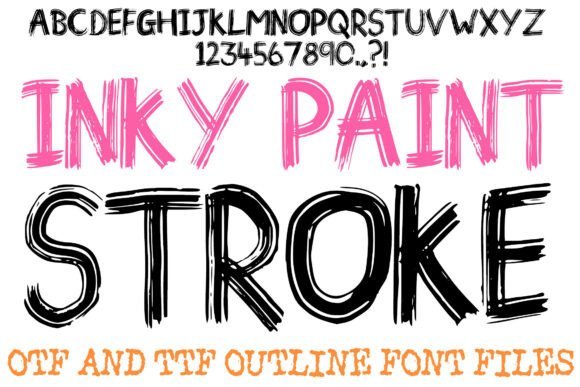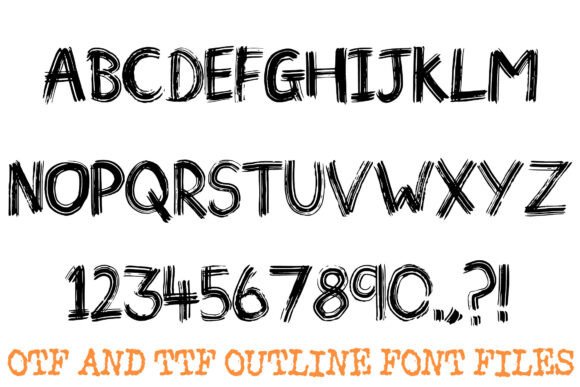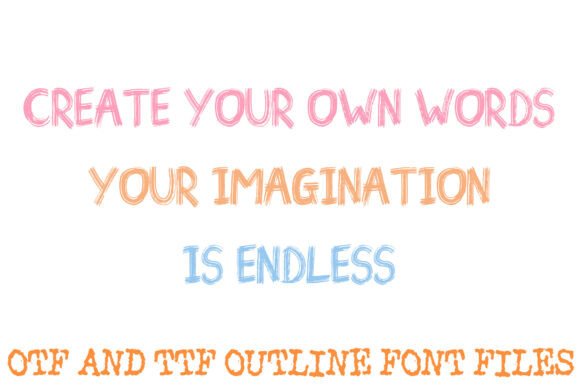
Unleashing the Raw Energy of Artistic Expression
Remember the rush of creating something new, when the paint flows effortlessly onto the canvas, and the world feels full of endless possibilities? For designers, this feeling is what makes the Inky Paint Stroke Font so irresistible. This expressive display typeface captures the raw energy of a professional art studio, bringing the authenticity of hand-painted strokes to digital design.
Hand-drawn using real paint and ink, the Inky Paint Stroke Font boasts a high-textured look, complete with prominent bristle textures and visible “feathering” at the ends of each stroke. Its multiple-layered ink paths create a sense of rapid movement and gestural flair, making it an outstanding choice for modern branding, edgy apparel, and high-impact editorial design.
- Unique Characteristics: Hand-painted, brush-like strokes and subtle texture, giving the font a unique, organic feel
Designer Review: Inky Paint Stroke Font
I recently had the chance to work with the “Inky Paint Stroke Font”, and I must say it’s an interesting addition to my design toolbox. ✨ One of the things that works well with this font is its ability to evoke a sense of hand-drawn whimsy. It’s perfect for projects that require a touch of organic feel.
The font’s varied brush strokes and subtle texture give it a unique character that’s sure to capture attention. I particularly enjoyed using it for headings and titles, as it adds a playful touch without being too distracting. ✨ Additionally, the font’s legibility is good, making it suitable for body text as well.
While the “Inky Paint Stroke Font” has its strengths, there are some limitations to consider. ⚠️ One of the main issues is its limited font size range. At smaller sizes, the font can become difficult to read, and at larger sizes, it can lose its delicate feel.
Another limitation is the font’s lack of customization options. While it’s a unique and charming font, it may not be suitable for projects that require a high degree of control over typography.
Overall, I think the “Inky Paint Stroke Font” is a fun and creative addition to any design project. While it has some limitations, its unique character and versatility make it a great choice for designers looking to add some personality to their work.
Recommendation
I would recommend the “Inky Paint Stroke Font” for designers working on projects that require a touch of whimsy or organic feel. However, for projects that require a high degree of control over typography or complex layouts, you may want to consider a more versatile font option.
- Unique, hand-drawn feel
- Varied brush strokes and texture
- Good legibility
- Limited font size range
- Lack of customization options
Use Inky Paint Stroke Font for:
1. Creating playful and artistic headings.
2. Adding a touch of whimsy to your designs.
3. Enhancing the visual appeal of your text.
Remember to balance the font with other design elements to avoid overwhelming the viewer.
Alternatives to Inky Paint Stroke Font
Pacifico is a beautiful, cursive script font that exudes a sense of elegance and sophistication. It’s ideal for use in wedding invitations, branding, and other high-end designs where a touch of luxury is desired.
Compared to Inky Paint Stroke Font, Pacifico has a more refined and polished look, making it a great choice for designs that require a level of sophistication. However, it lacks the playful, hand-painted feel of Inky Paint Stroke Font.